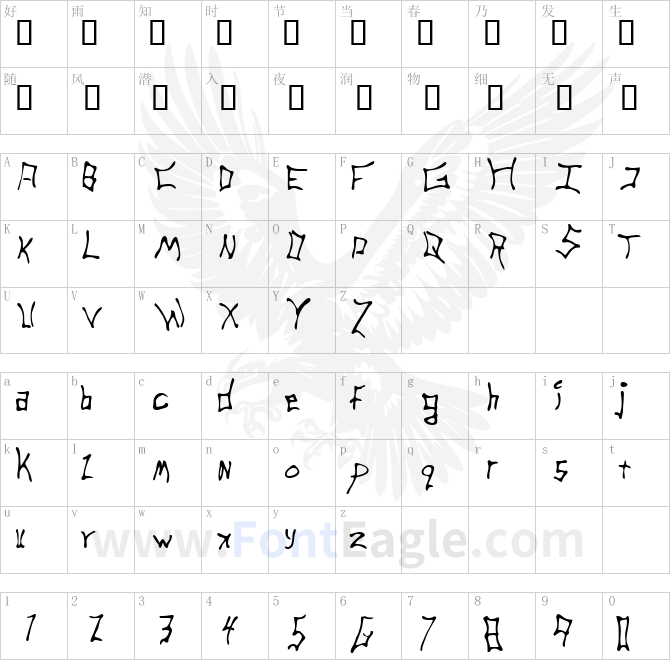
Rock-‘n-Roller is a great font, widely used in graphic design, single-page menu design, poster design and other fields, and is deeply loved by designers.Rock-‘n-Roller download.